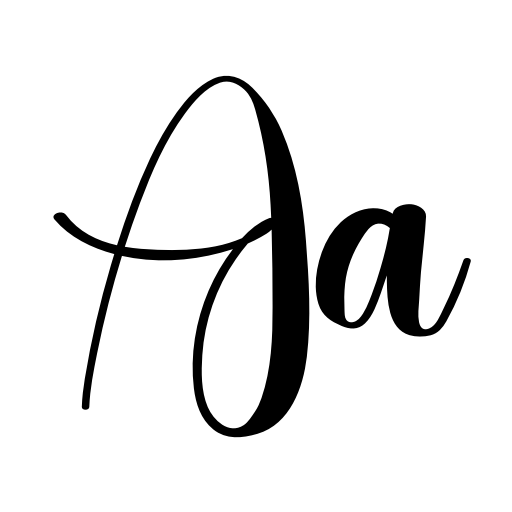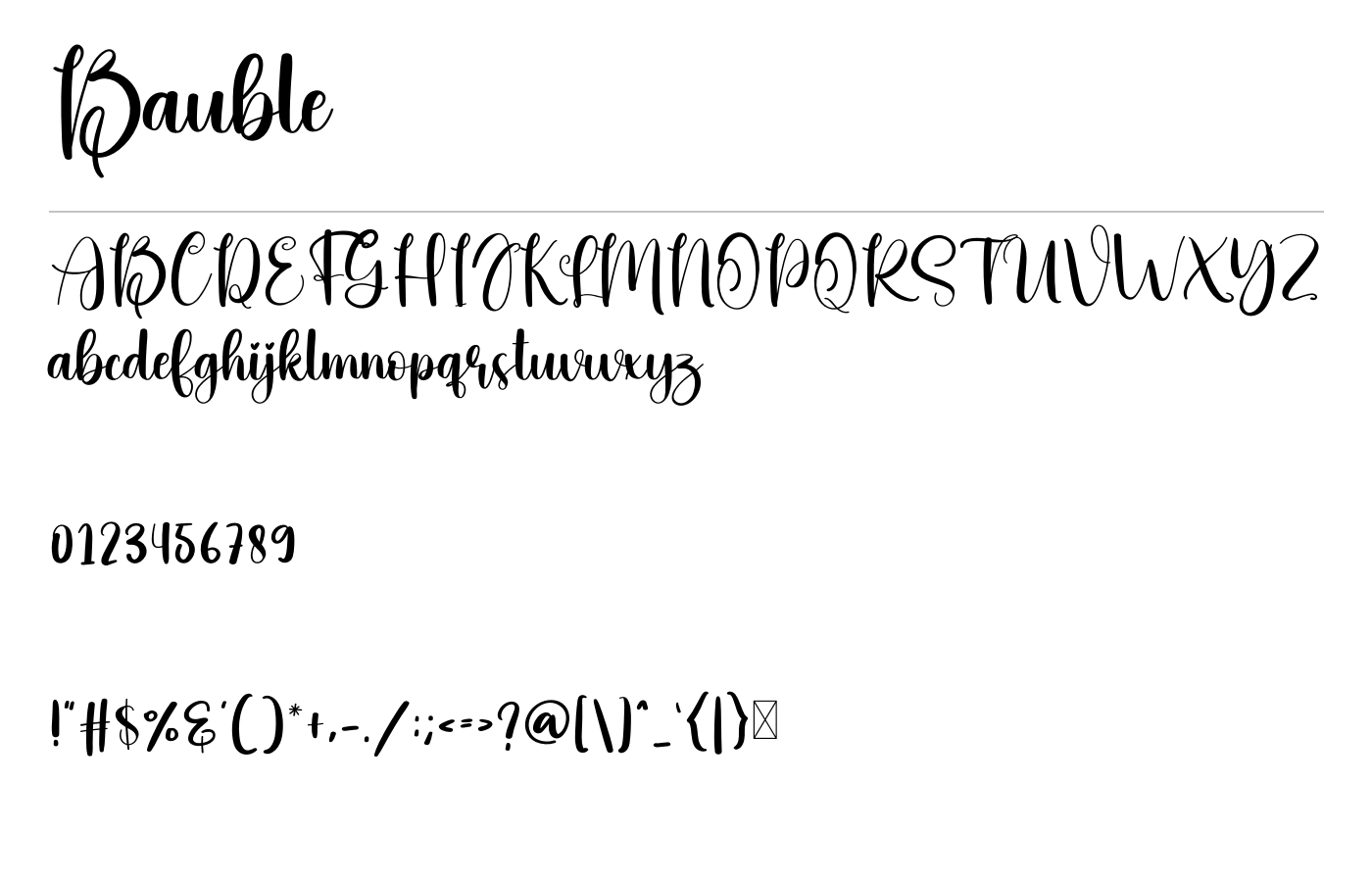
Bauble is a playful and elegant script font featuring a smooth, flowing design with varied stroke weights that give it a hand-lettered feel. Its tall, slightly condensed letterforms and stylish curls make it perfect for creative branding, invitations, and decorative headlines where a charming, personal touch is desired. This font works especially well for projects aiming to convey warmth, creativity, and sophistication.
Bauble Font
About Bauble Font